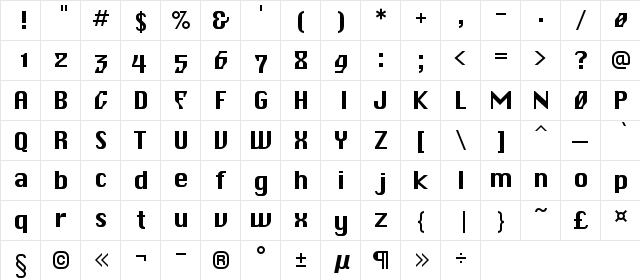
BlagovestSevenC Regular
Design Context for BlagovestSevenC Typeface
BlagovestSevenC is a composed and adaptable typeface that performs quietly and consistently across a wide range of design contexts.